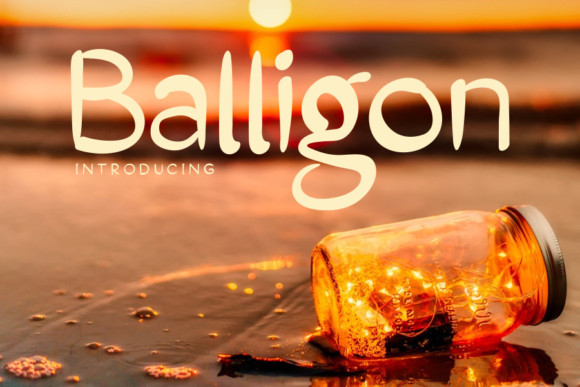
Balligon Font
Balligon is a neat and round lettered sans serif font. It can easily be matched to an incredibly large set of projects, so add it to your creative ideas and notice how it makes them stand out!